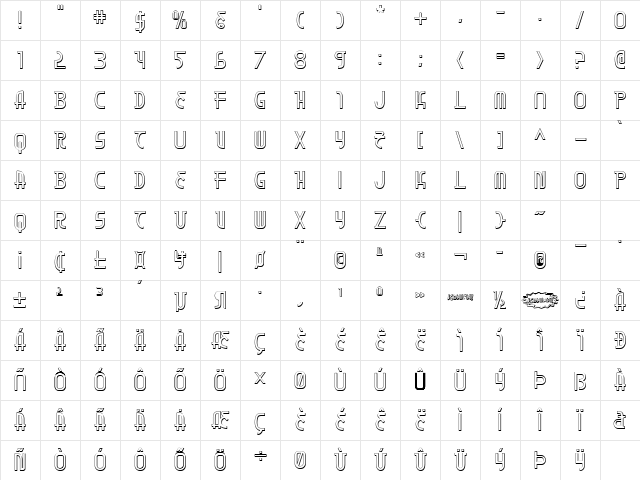
Moon Dart 3D Regular Free Font
Moon Dart 3D Regular
Moon Dart 3D Family
Design Context for Moon Dart 3D
Moon Dart 3D is a composed and adaptable typeface that performs quietly and consistently across a wide range of design contexts.